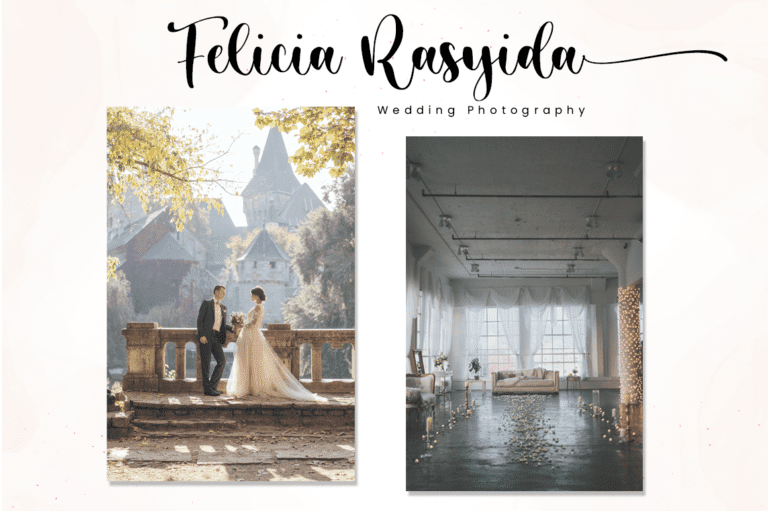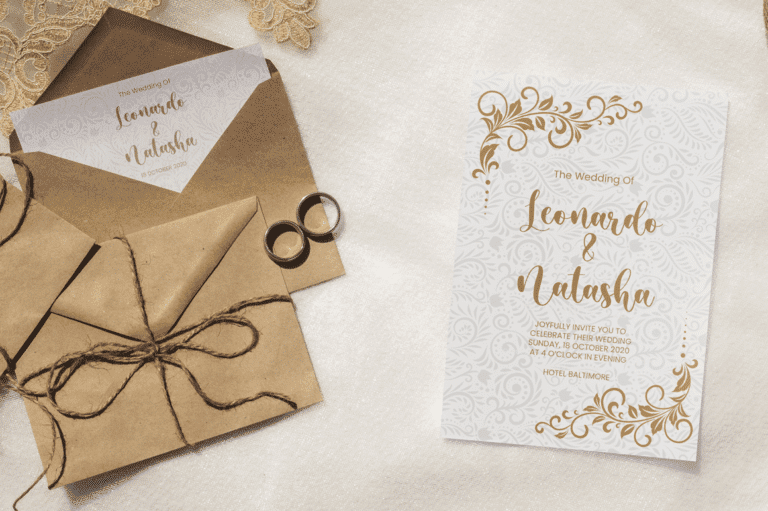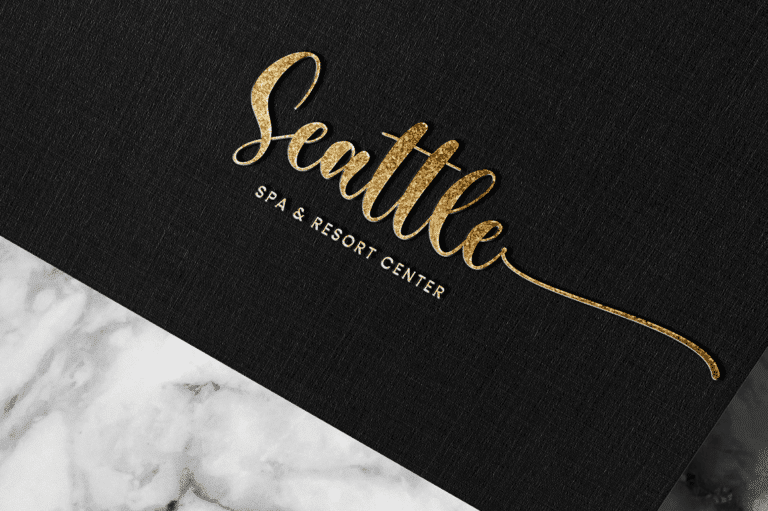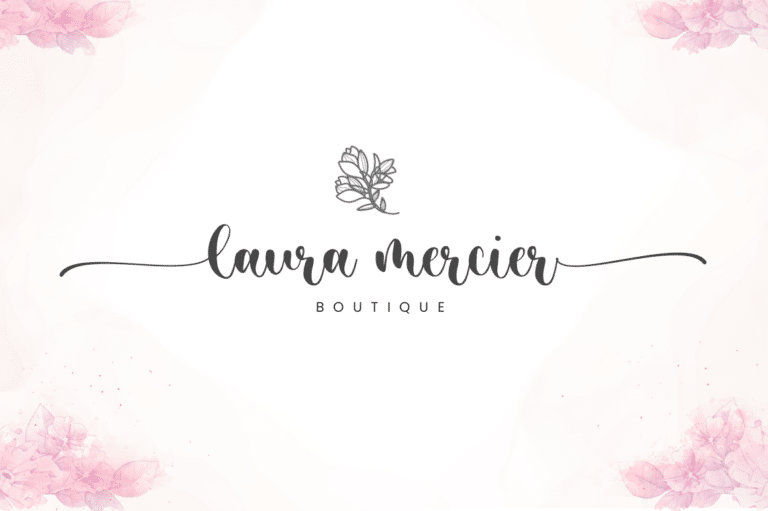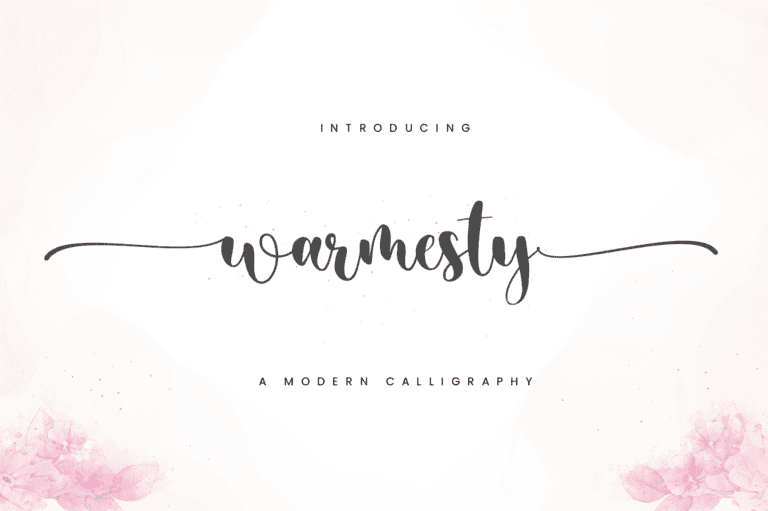
Warmesty Font
Warmesty is a beautiful calligraphy font perfect for crafting, branding, invitation, stationery, wedding designs, social media posts, advertisements, product packaging, product designs, label, photography, watermark, special events or anything.